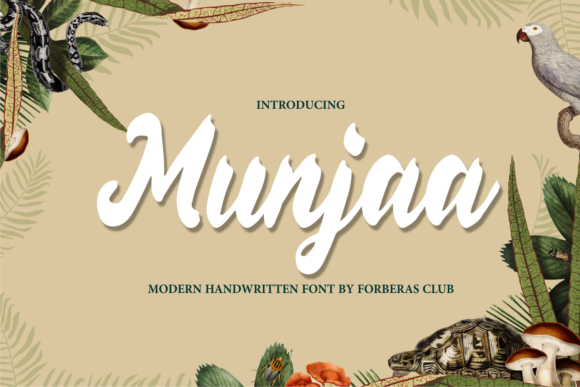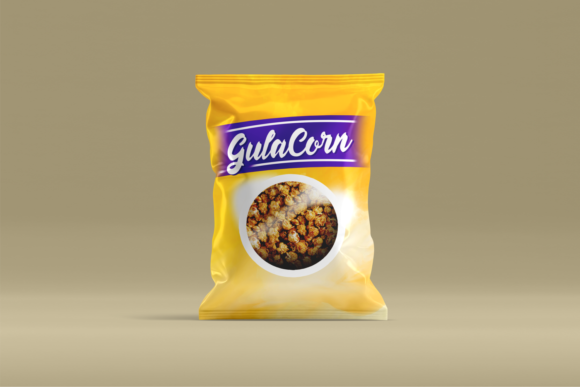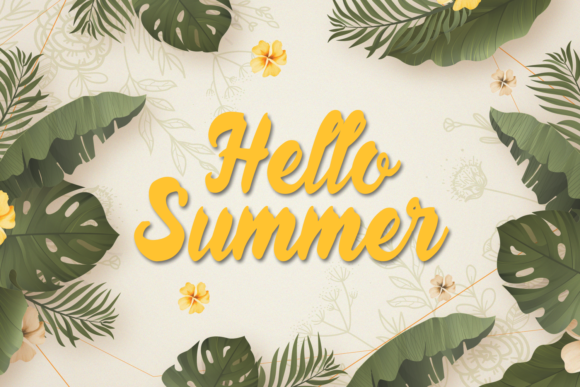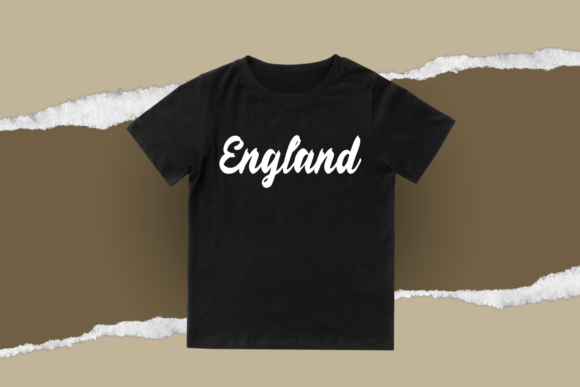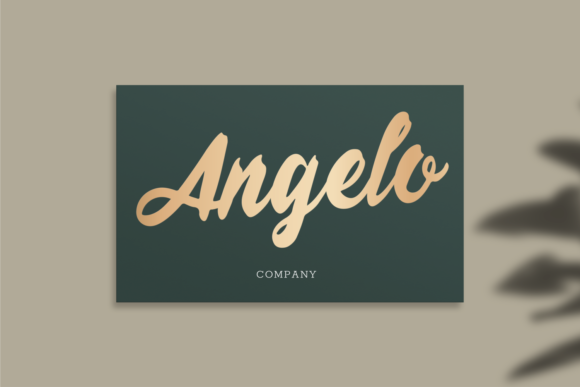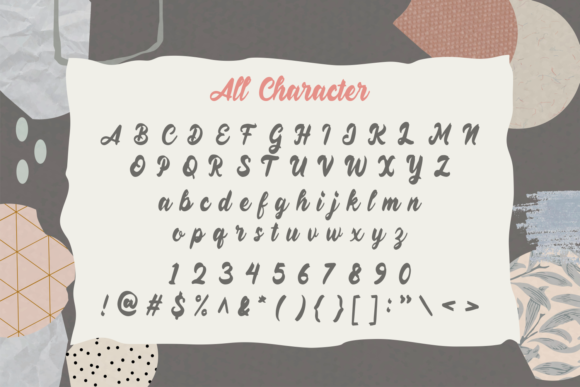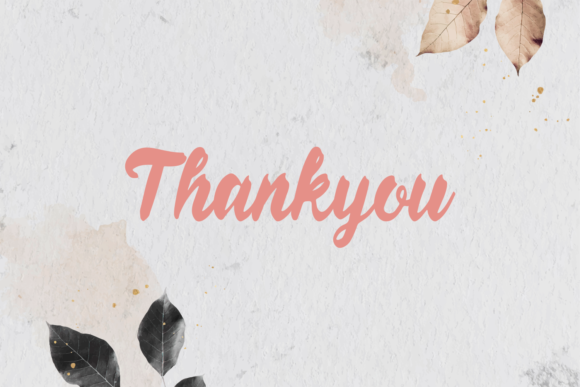
Munjaa Font
About Munjaa Font
Munjaa is a bold handwritten font. It’s perfect for book covers, product packaging, branding projects, magazines, social media, and many other projects that need to stand out and look authentic!